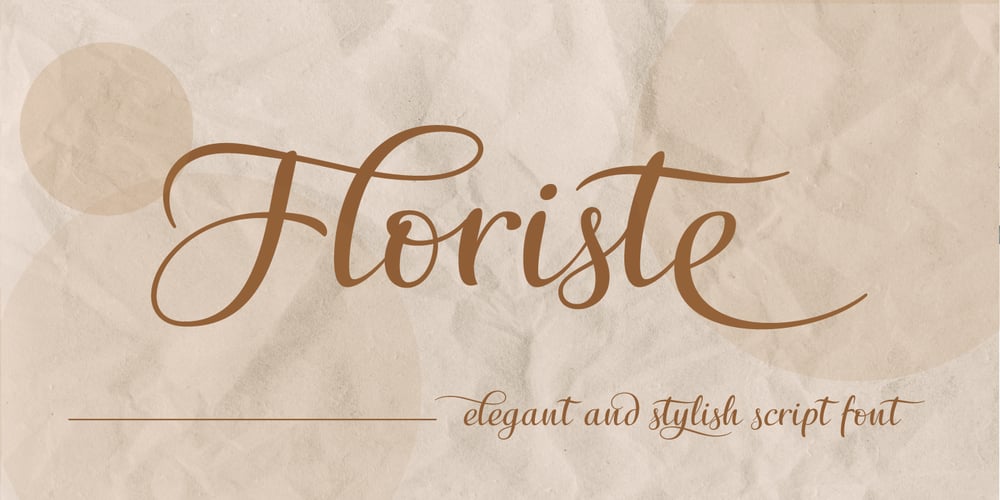
Floriste Font Family was designed by Carine de Wandeleer and published by Eurotypo. Floriste contains 1 styles and family package options. Floriste is an elegant, stylized and expressive script font inspired by those beautiful calligraphies of yesteryear, but with a modern point of view. Its informal and friendly appearance refers to traditional flowing writing.Floriste includes many stylistic variations, swashes, stylistics sets, ligatures, contextual and stylistic alternates to create more authentic and varied connections between letters and to assure almost infinite combination possibilities. In addition, the font includes a set of very useful ornaments to combine and give an ornamental aspect to the calligraphic text. It has Central European language support to suit your design.Floriste works perfectly on greeting cards, invitations, weddings, posters, magazines, fashion world, brands, logos, packaging, etc. Floriste is friendly, cool and fun to use in your works. Enjoy it!